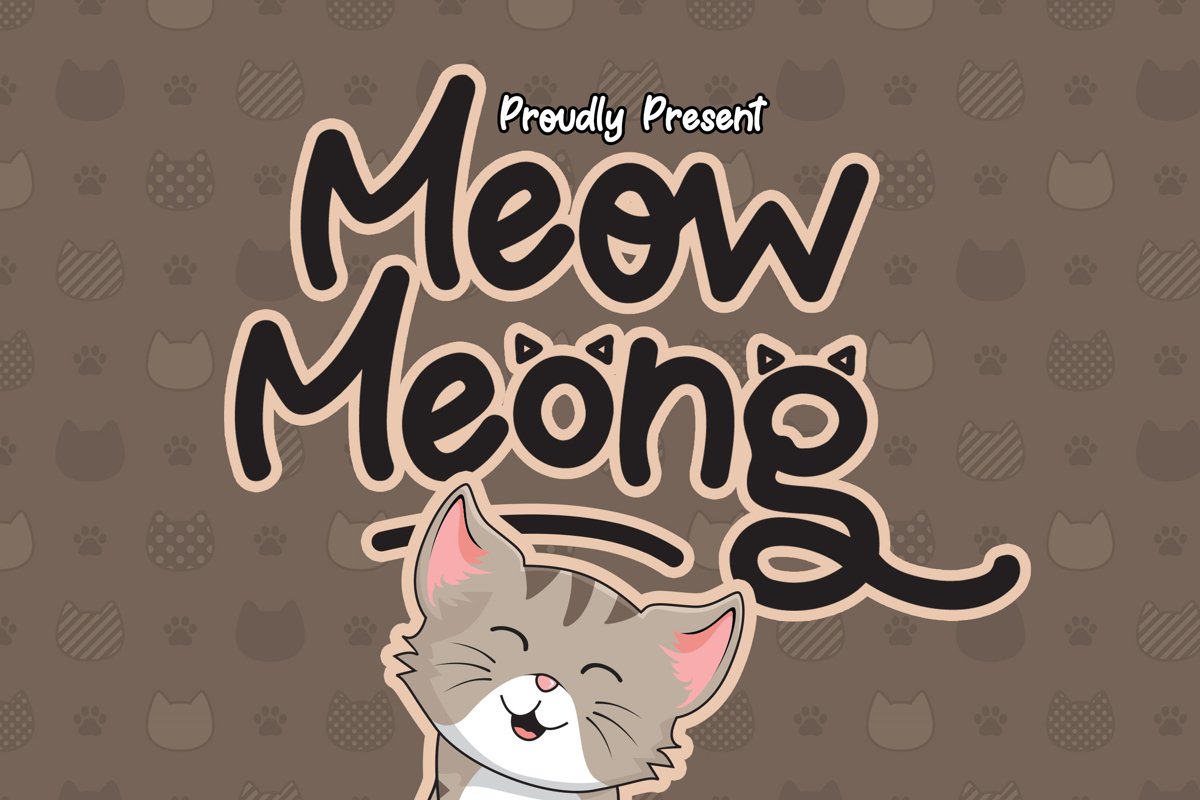
Meow Meong It will be great for T-shirt, Posters, Clean Design, Branding Design, Merchandise and Social Media Posts.This font contain of Uppercase, Lowercase, Number, Symbol, Punctuation, also already PUA encoded.
Meow Meong Italic
Meow Meong
Meow Meong Hollow